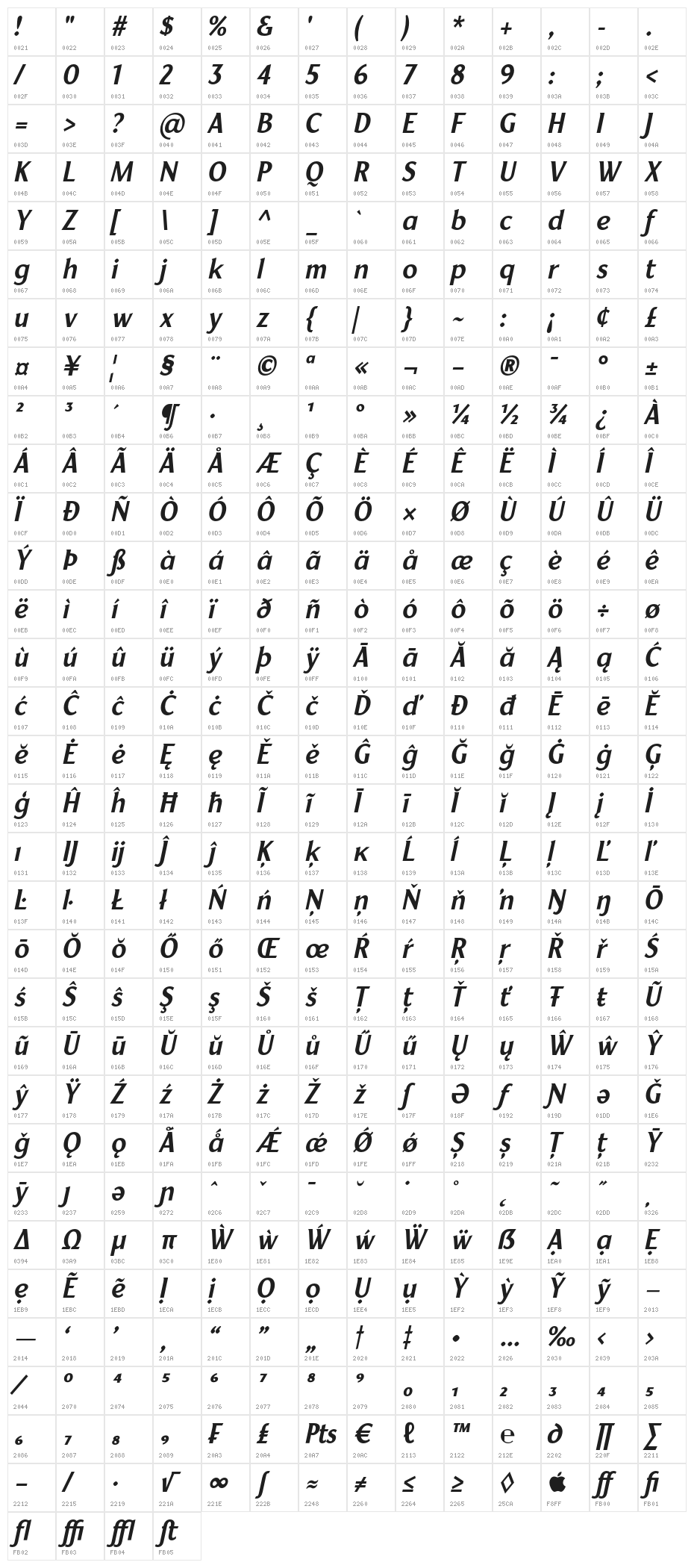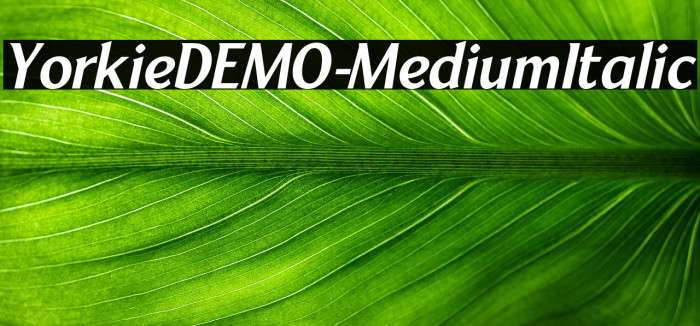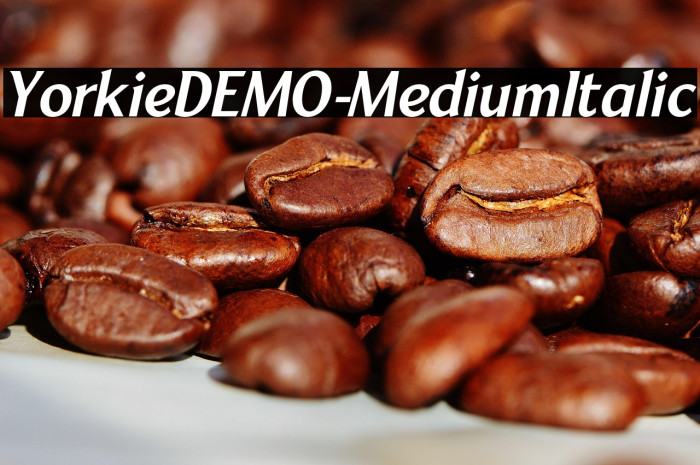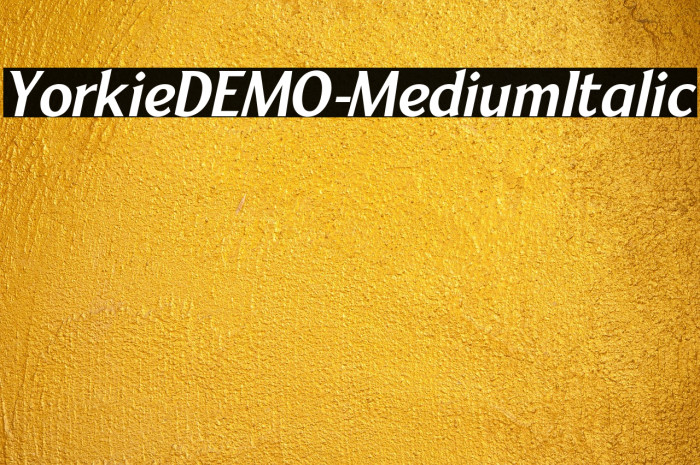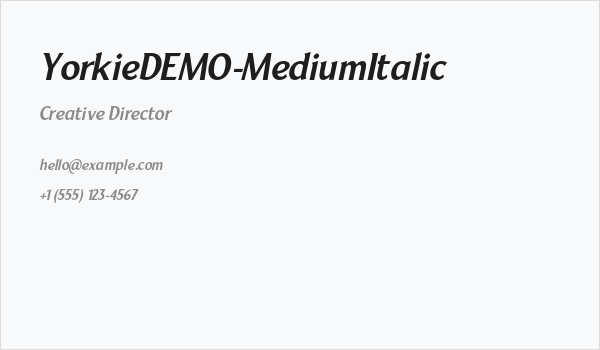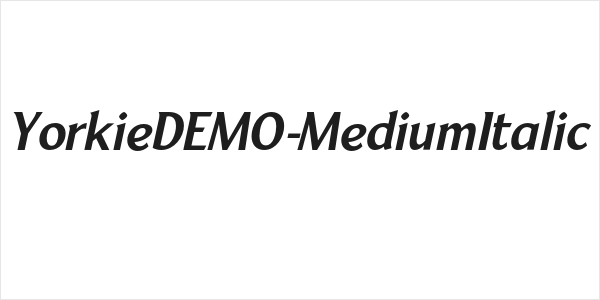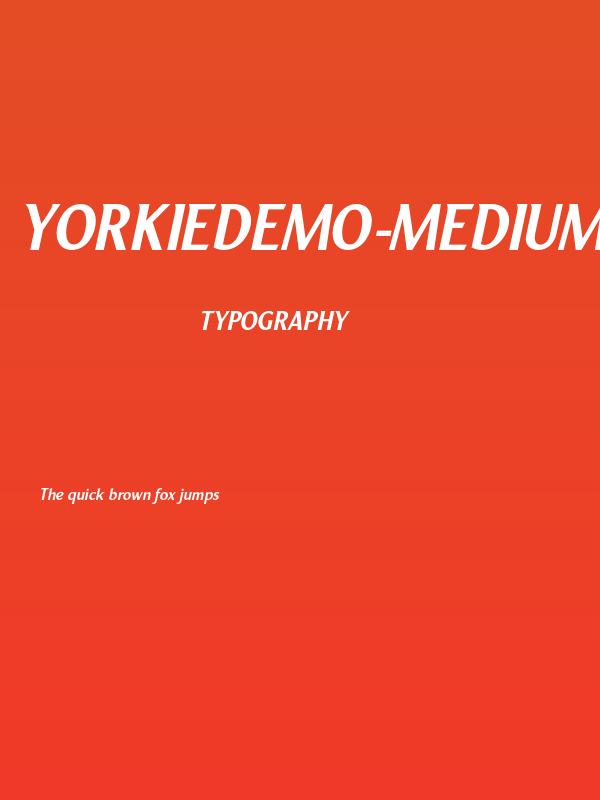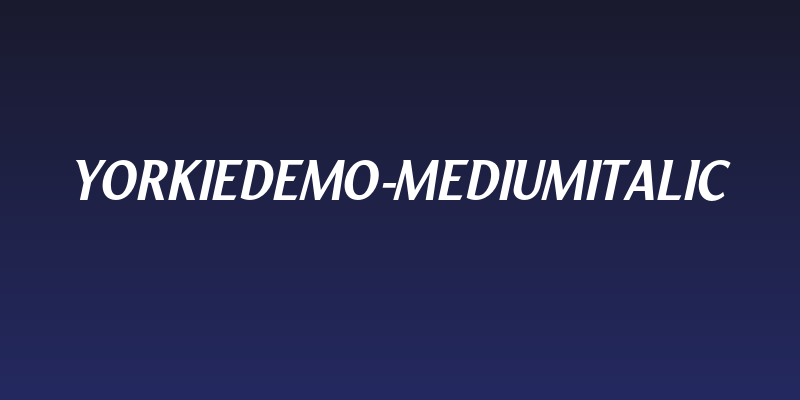
YorkieDEMO-MediumItalic Font
YorkieDEMO-MediumItalic Description
This font features a dynamic and elegant italic style, characterized by its smooth curves and slightly condensed letterforms. The strokes are moderately thick, providing a balanced contrast that enhances readability while maintaining a stylish appearance. The uppercase letters are bold and commanding, while the lowercase letters offer a softer, more approachable feel. Numbers and special characters are crafted with the same attention to detail, ensuring consistency across all glyphs. The overall design is modern yet timeless, making it suitable for a variety of applications.